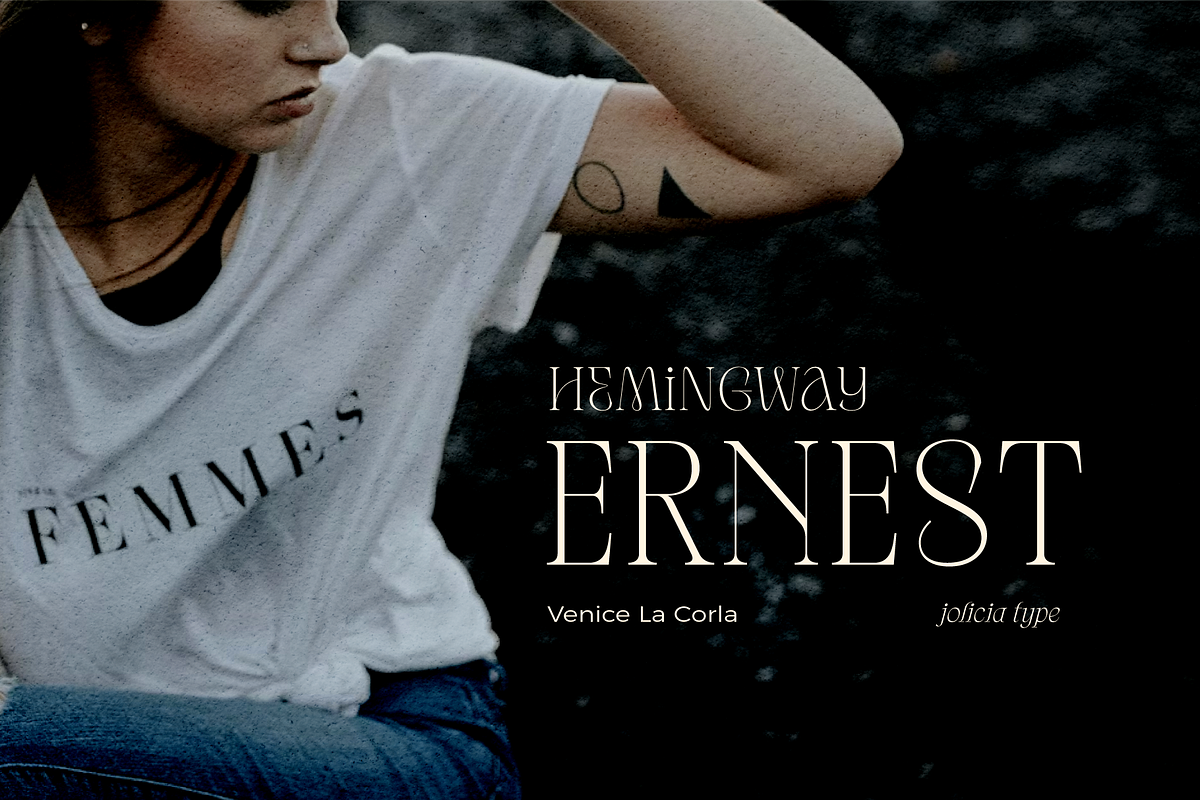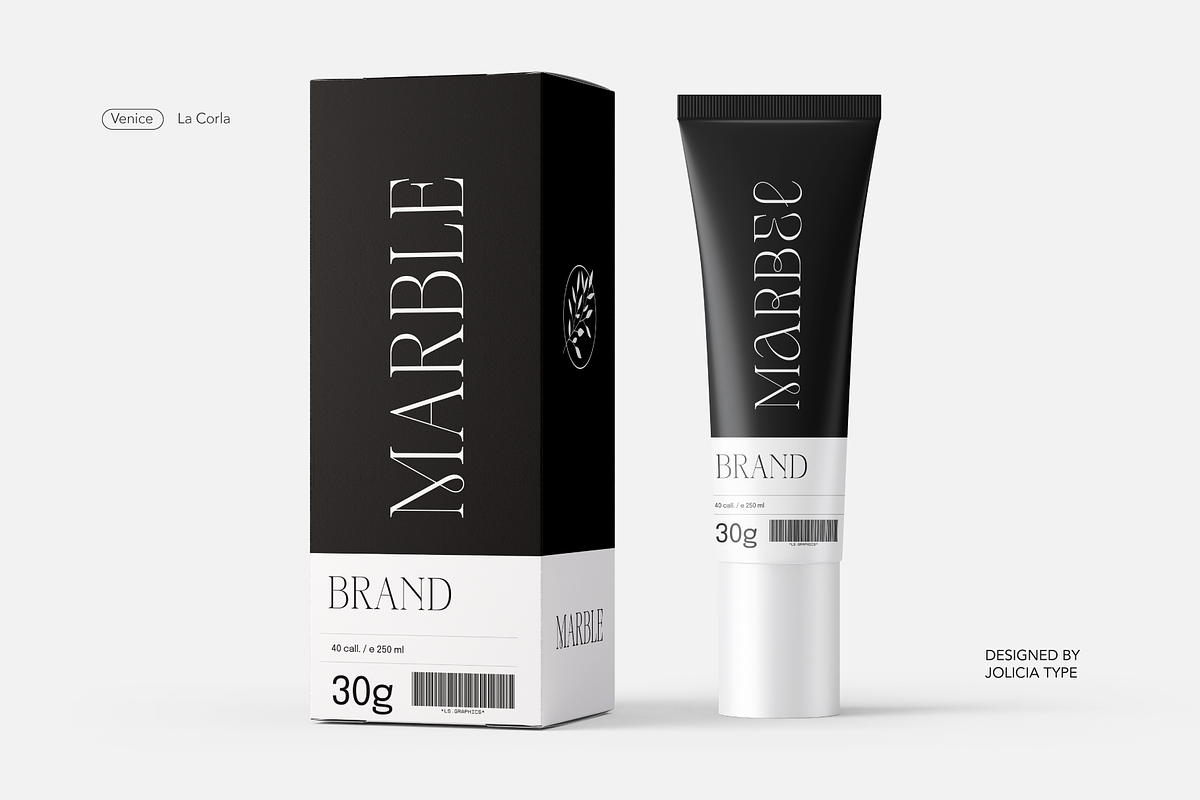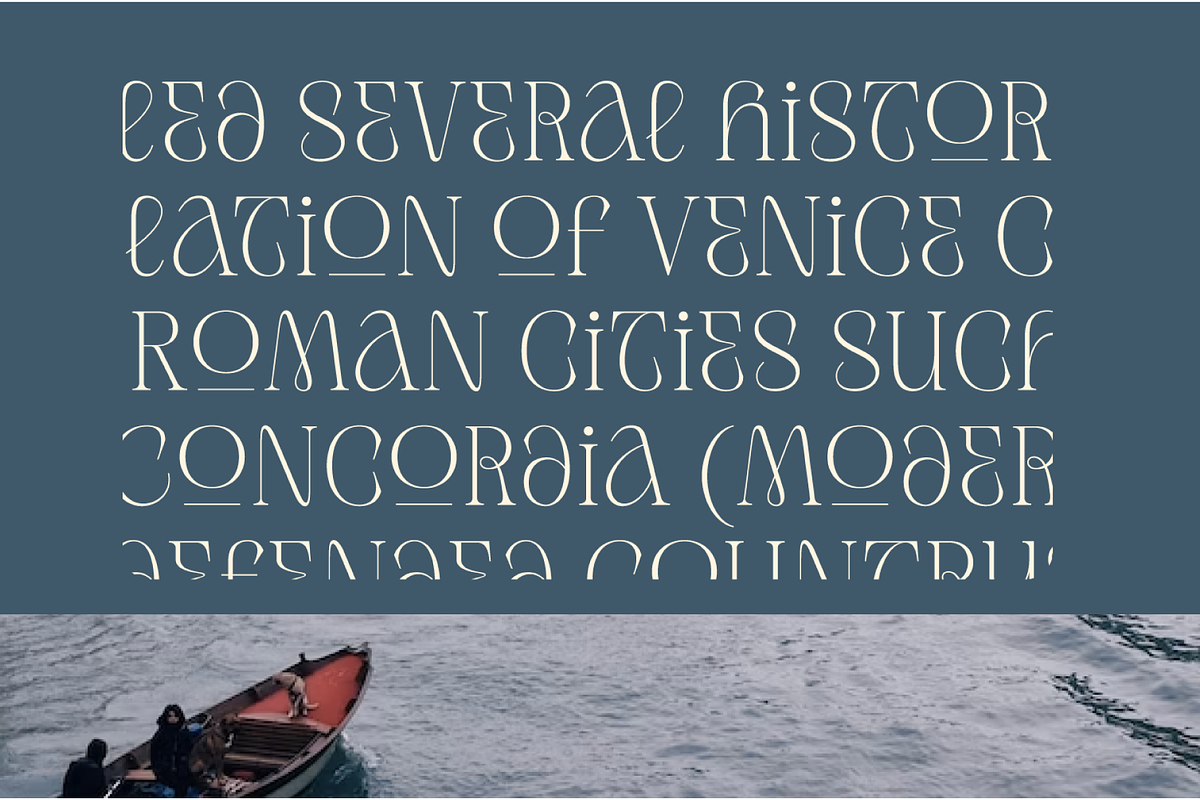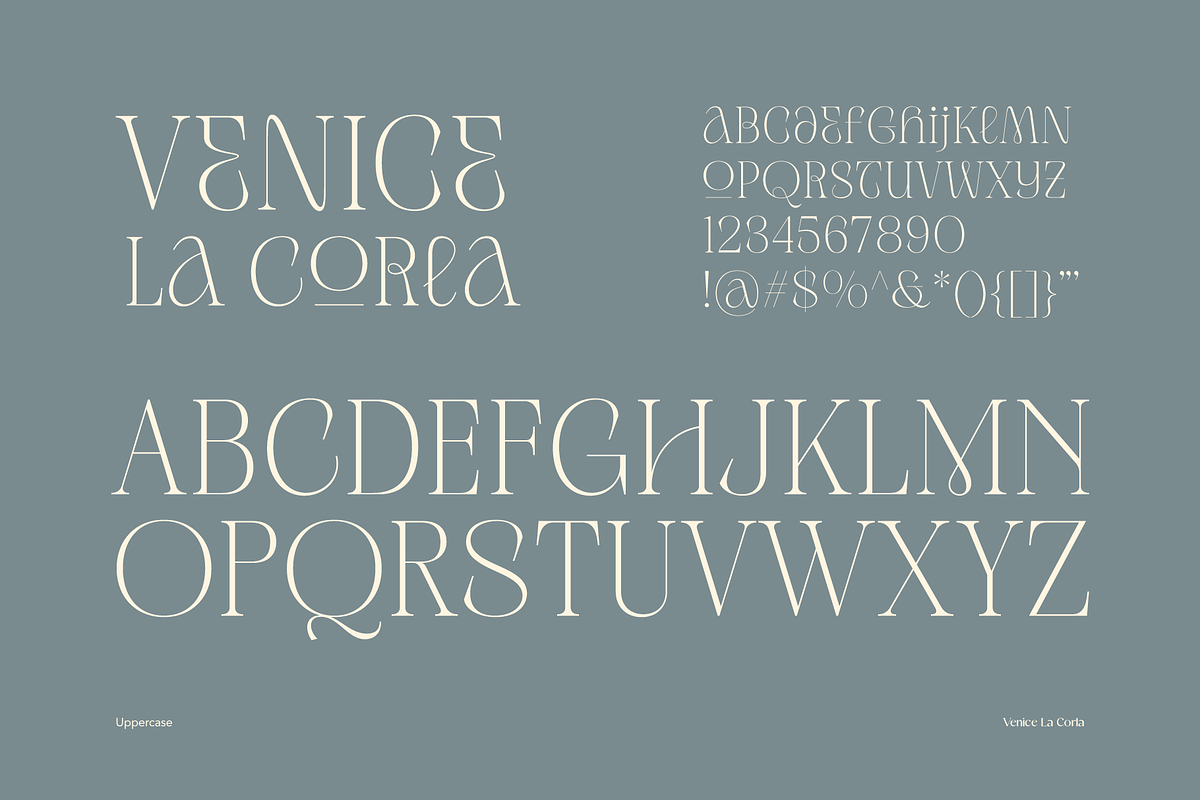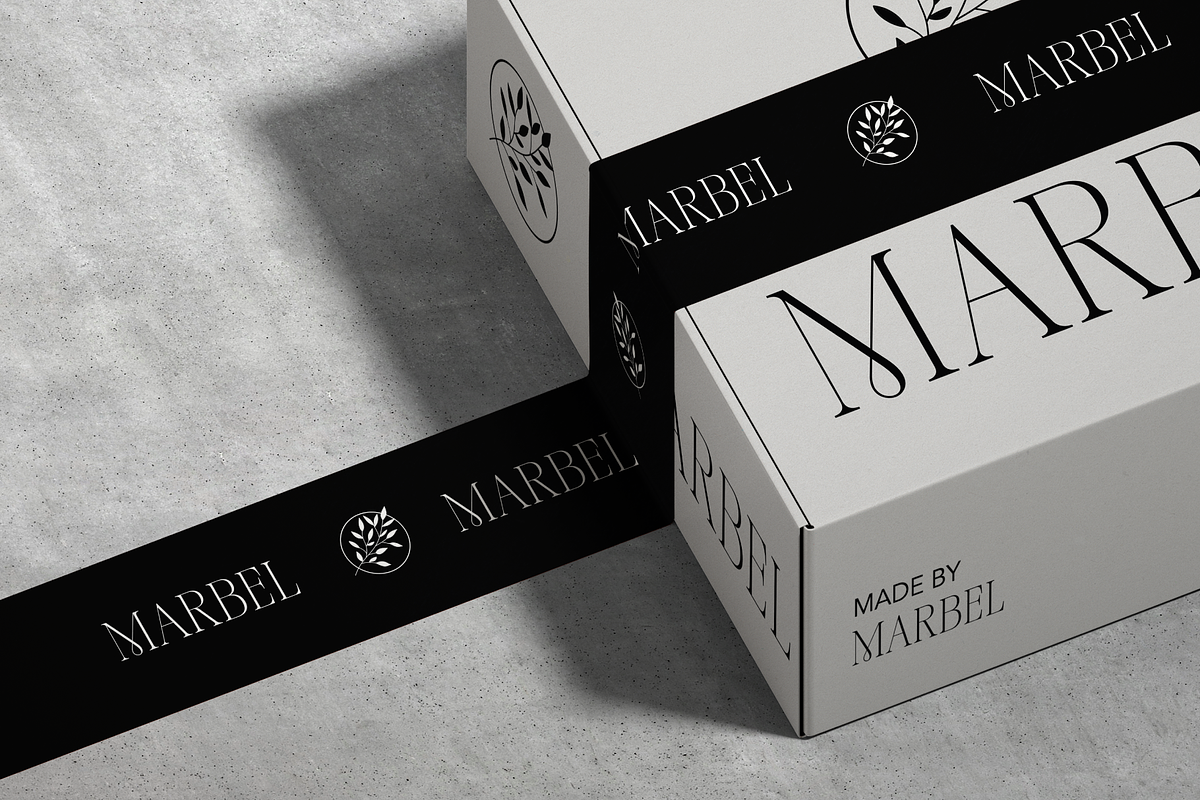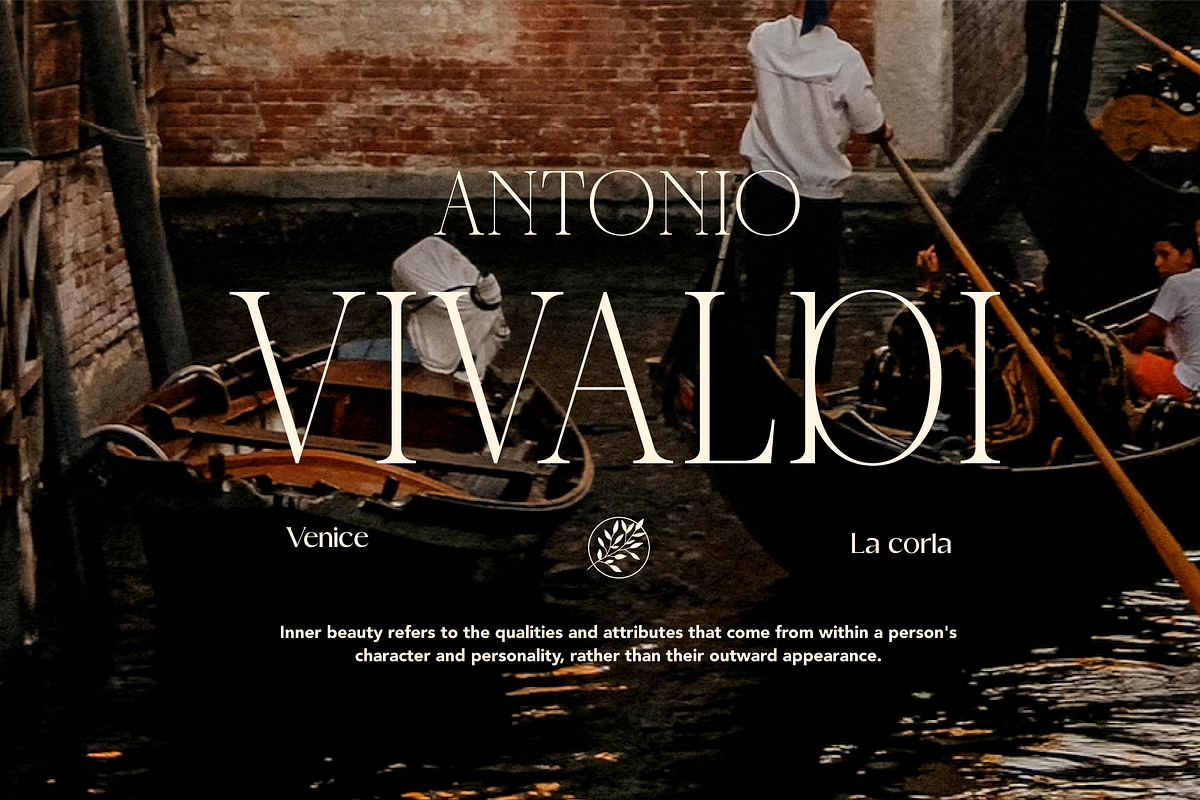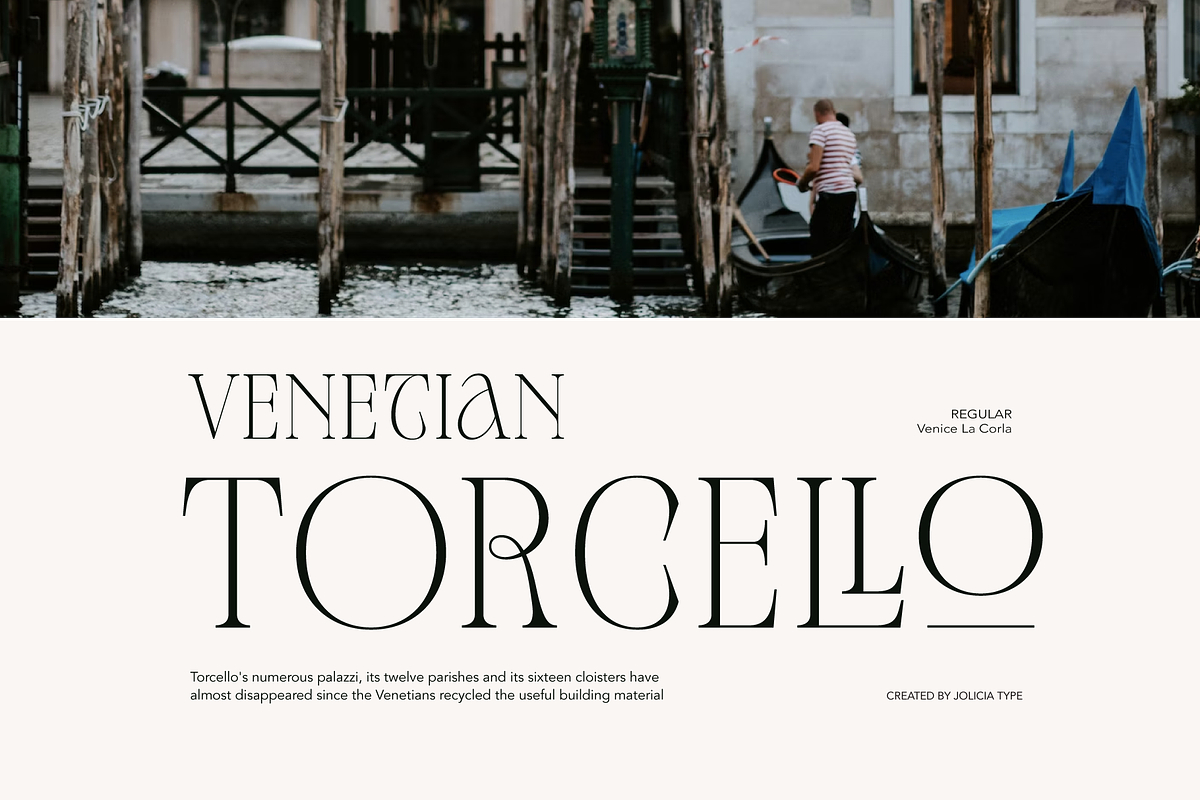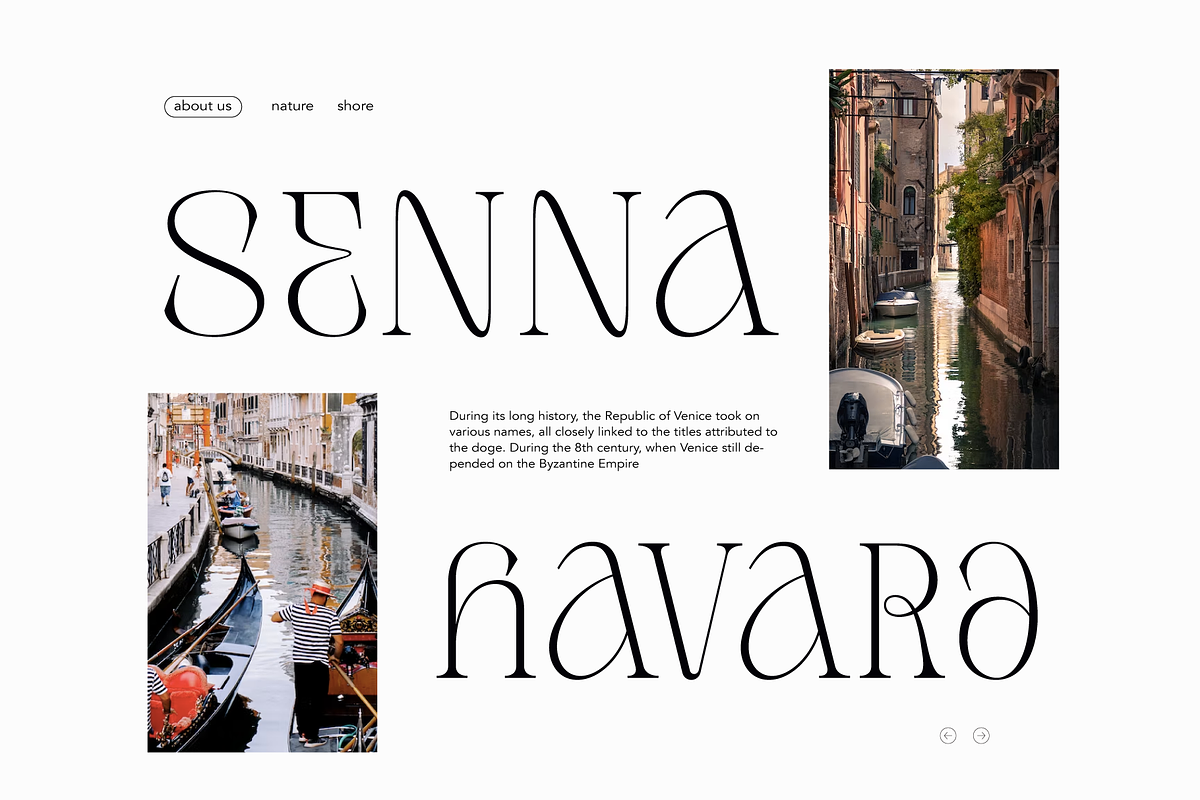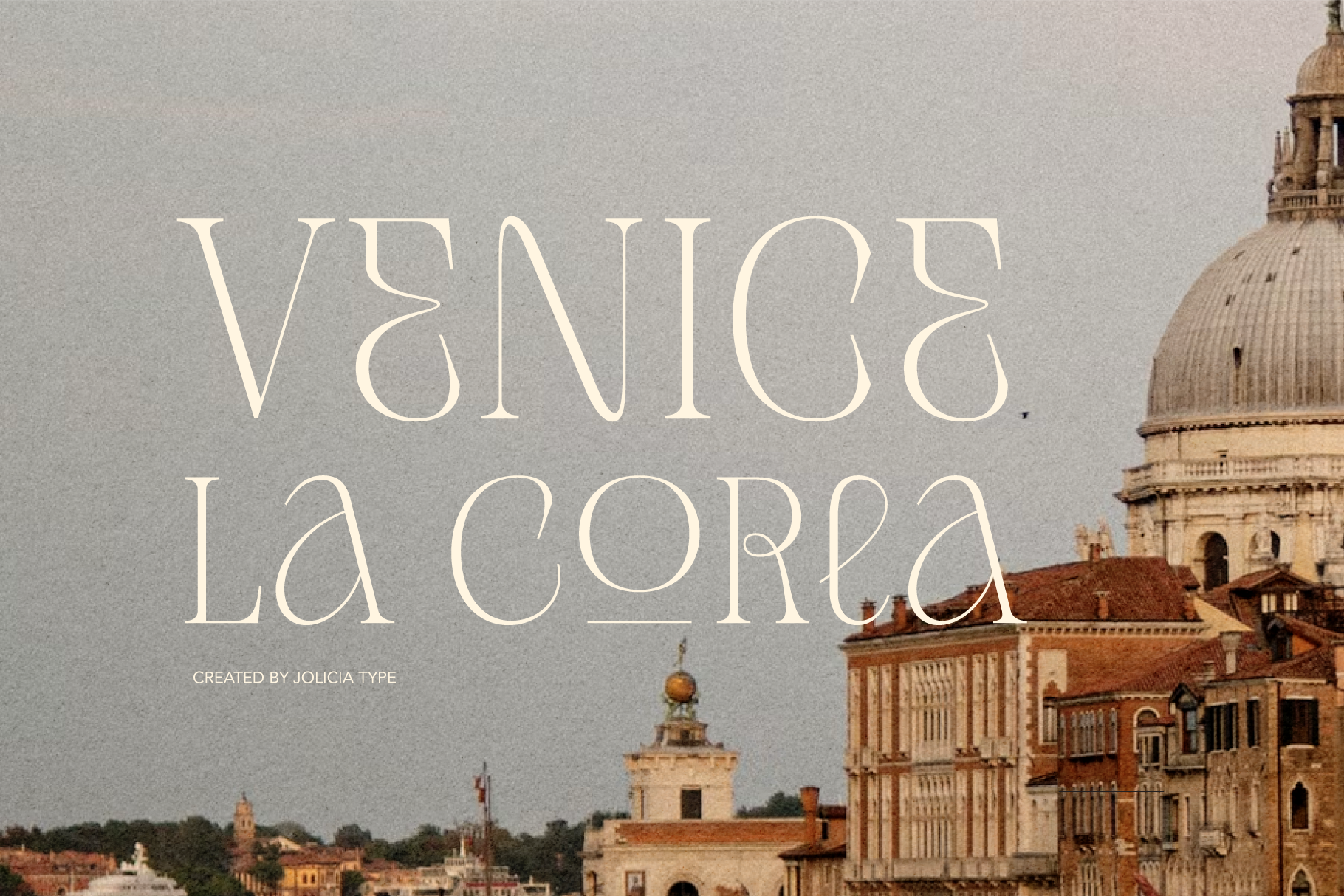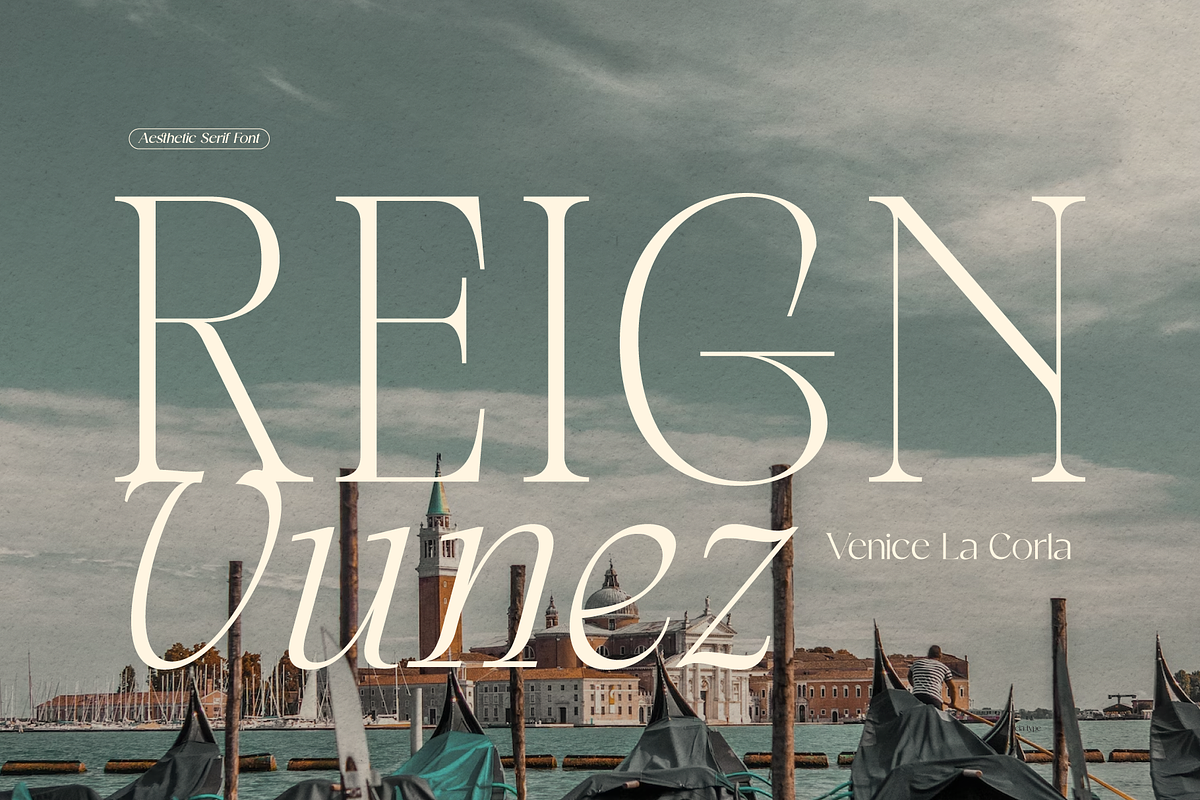
Venice La Corla | Elegant Serif Font
Venice La Corla is a breathtaking serif font that embodies timeless elegance and sophistication. This typeface exudes a sense of refinement and grace that is perfect for projects where a touch of classic charm is required. Each character in Venice La Corla is meticulously crafted to provide a harmonious balance between its serifs and elegant lines, resulting in a truly remarkable font.
- Serene Elegance: Venice La Corla's primary hallmark is its serene elegance. The font's graceful serifs and curvaceous letterforms create an atmosphere of sophistication that is suitable for various design applications.
- Timeless Appeal: Inspired by the romanticism of the Italian city of Venice, this font transports you to an era of classic beauty. Its timeless appeal is perfect for projects that require a touch of nostalgia and charm.
- Versatile Usage: Venice La Corla is incredibly versatile and adapts effortlessly to different design scenarios. Whether it's a formal wedding invitation, a vintage-inspired poster, or a high-end fashion magazine, this font adds a touch of class to any project.
- Exceptional Legibility: Despite its ornate elegance, Venice La Corla maintains excellent legibility, making it a practical choice for long passages of text as well as for branding and display purposes.
- Captivating Details: The font's characters are adorned with captivating details, making it a true work of art. Each letter is thoughtfully designed to enhance the overall visual appeal of your design.
Recommended Uses: Venice La Corla is ideal for a wide range of projects, including but not limited to:
- Wedding invitations and stationery
- Vintage and classic-themed designs
- High-end fashion and luxury branding
- Editorial design and magazine layouts
- Product packaging and labels
- Fine art prints
- Wine labels and menus for upscale restaurants Incorporate Venice La Corla into your design projects, and you'll instantly elevate the aesthetics, adding a touch of timeless elegance that will captivate your audience.